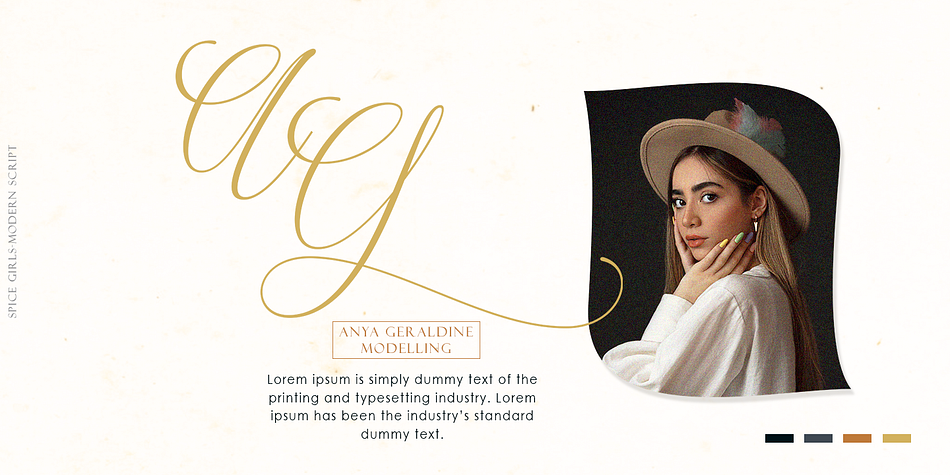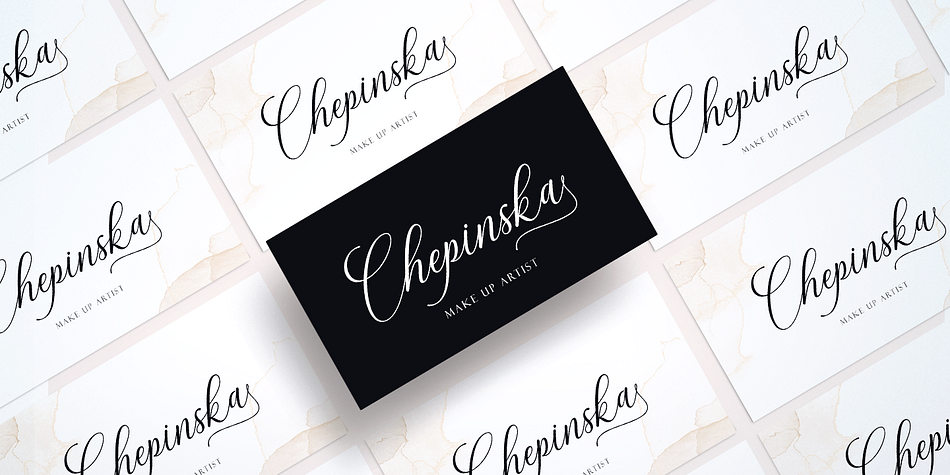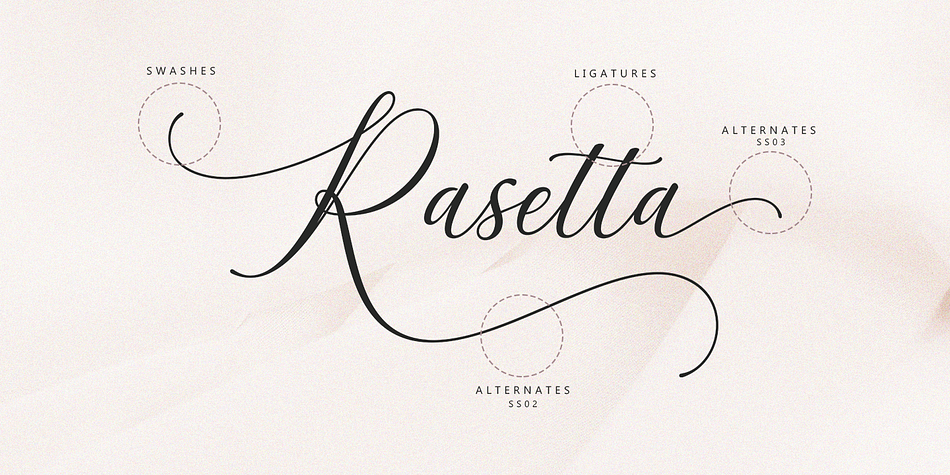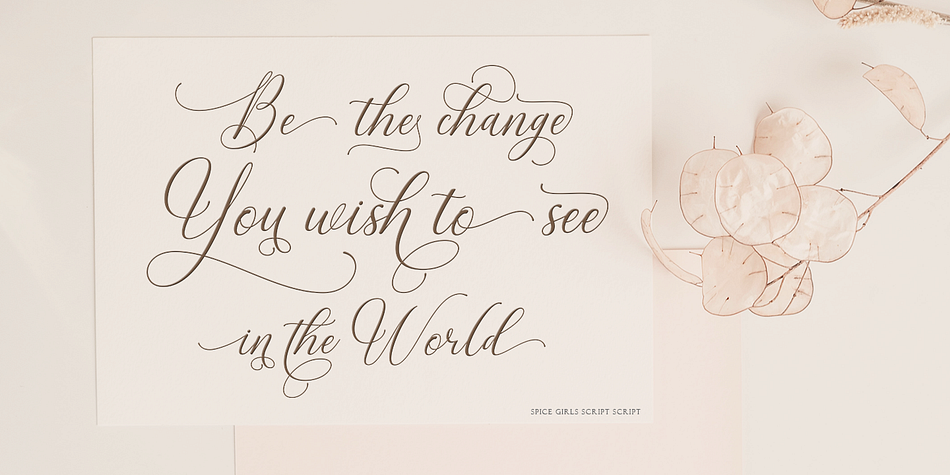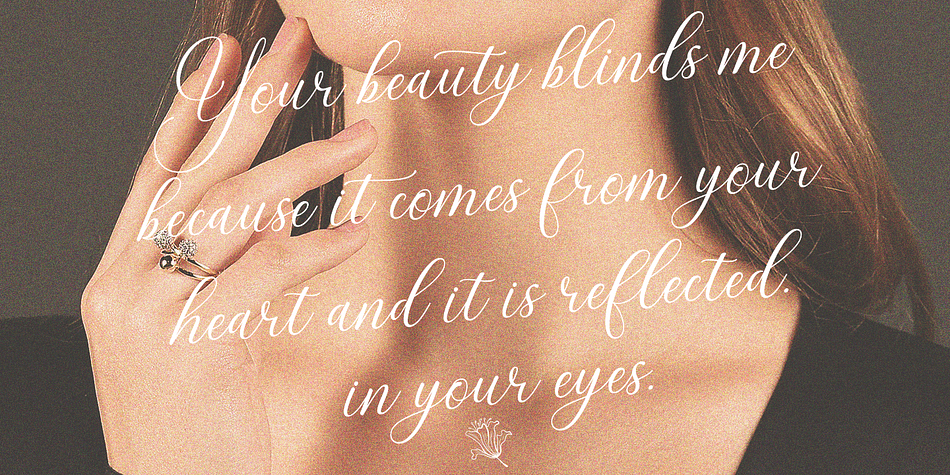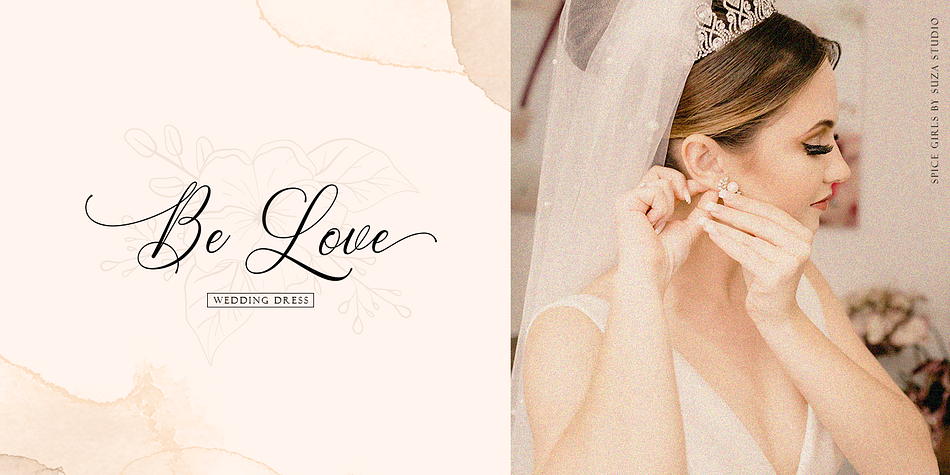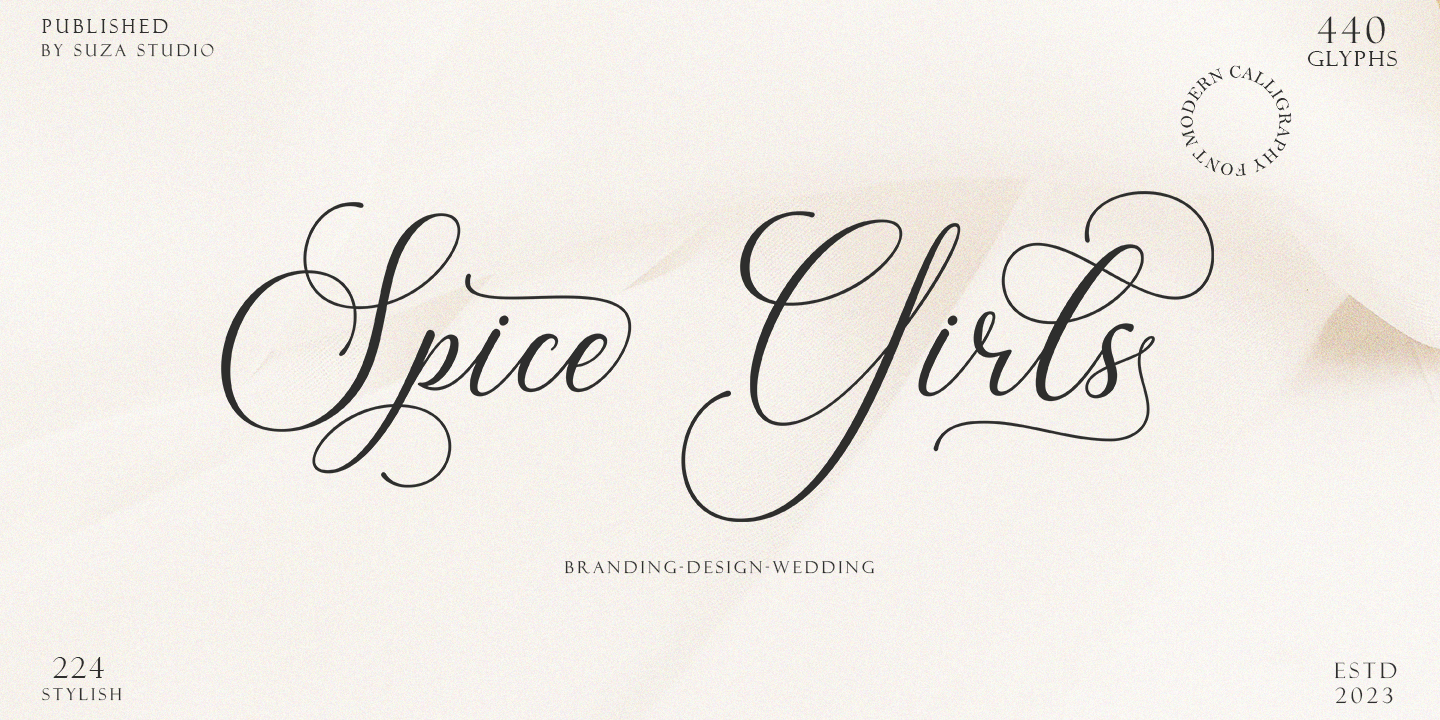
Spice Girls is a modern calligraphy script font that comes with beautiful and unique alternative characters. a mixture of copper calligraphy with a handttering style. Designed to present an elegant style. Spice Girls is appealing because it’s smooth, clean, feminine, sensual, glamorous, simple, and very easy to read. The classic style is perfect for all kinds of formal items such as invitations, labels, menus, logos, fashion, makeup, stationery, letterpress, romantic novels, magazines, books, greeting / wedding cards, packaging, labels.
Spice Girls features 410+ glyphs and 224 alternate characters and ligatures. including multiple language support. It features OpenType alternative styles, ligatures and strokes, which allow you to mix and match letter pairs to suit your designs, as well as a touch of ornamentation to give this font an elegant look.